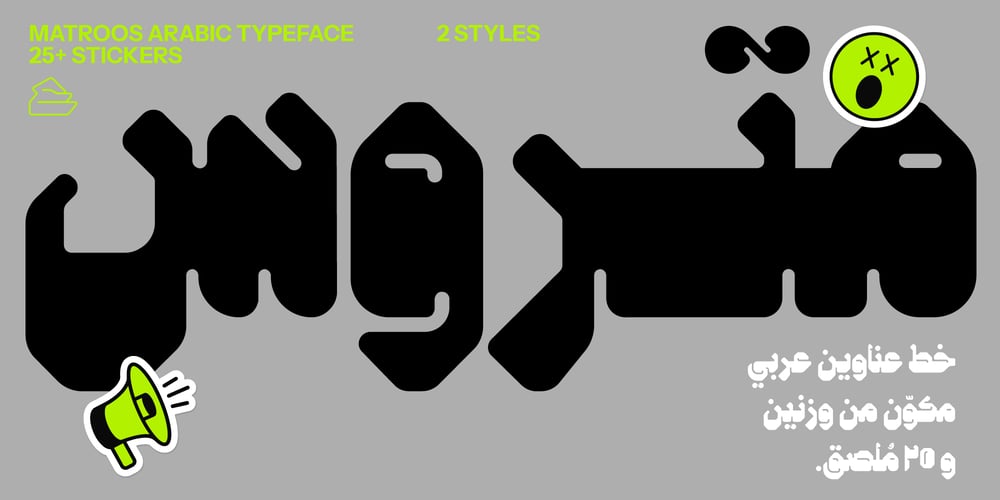
Matroos Arabic Font Family was designed by Abdulrahman Eleraqy and published by Eraqy TF. Matroos Arabic contains 2 styles and family package options. Matroos, translated as “Full” in English, is a new bold Arabic typeface created to be used for bold titles.It comes in two weights in a display way to make it legible for contemporary use in various creative projects including branding, headlines and posters. Features 25 bonus stickers in the glyph set.